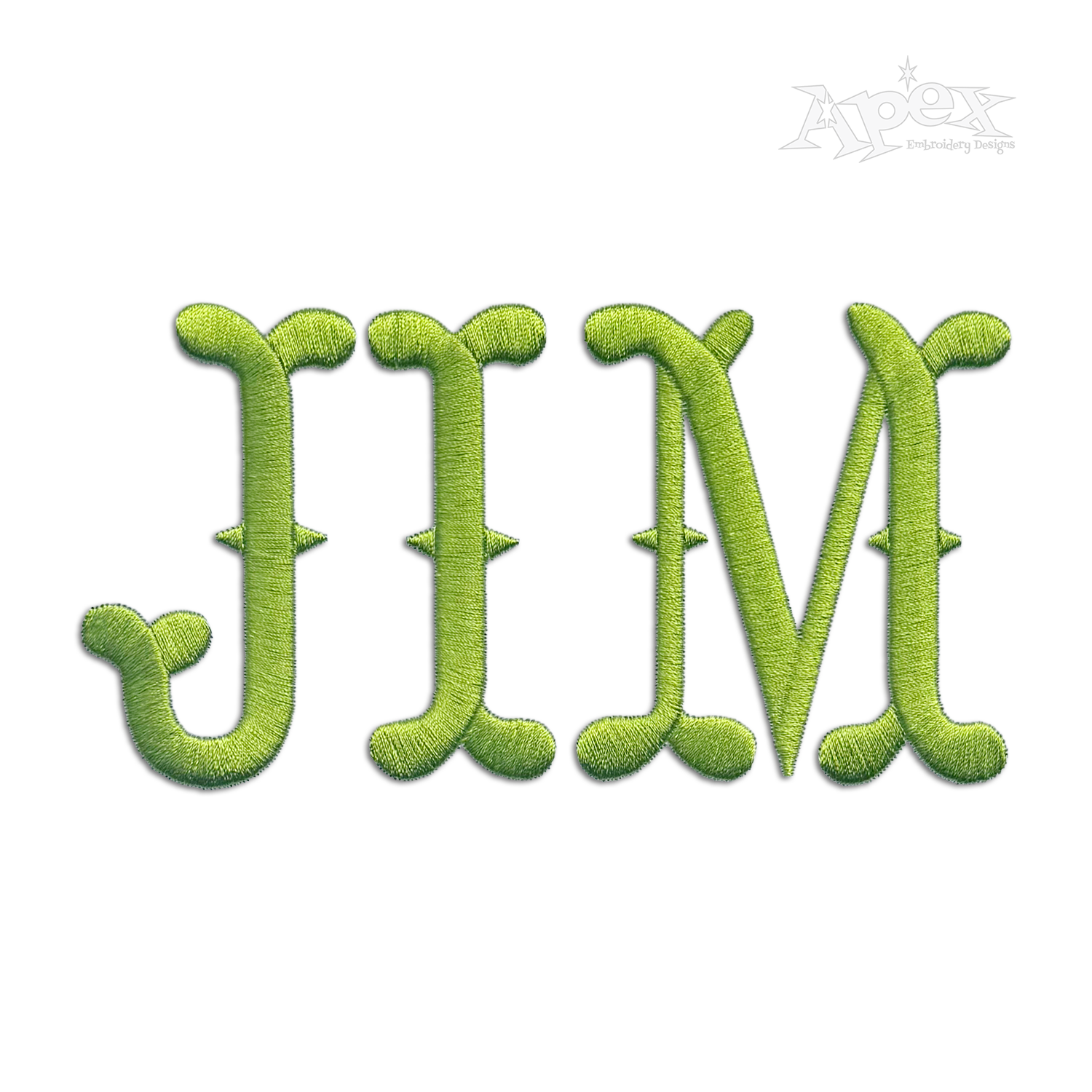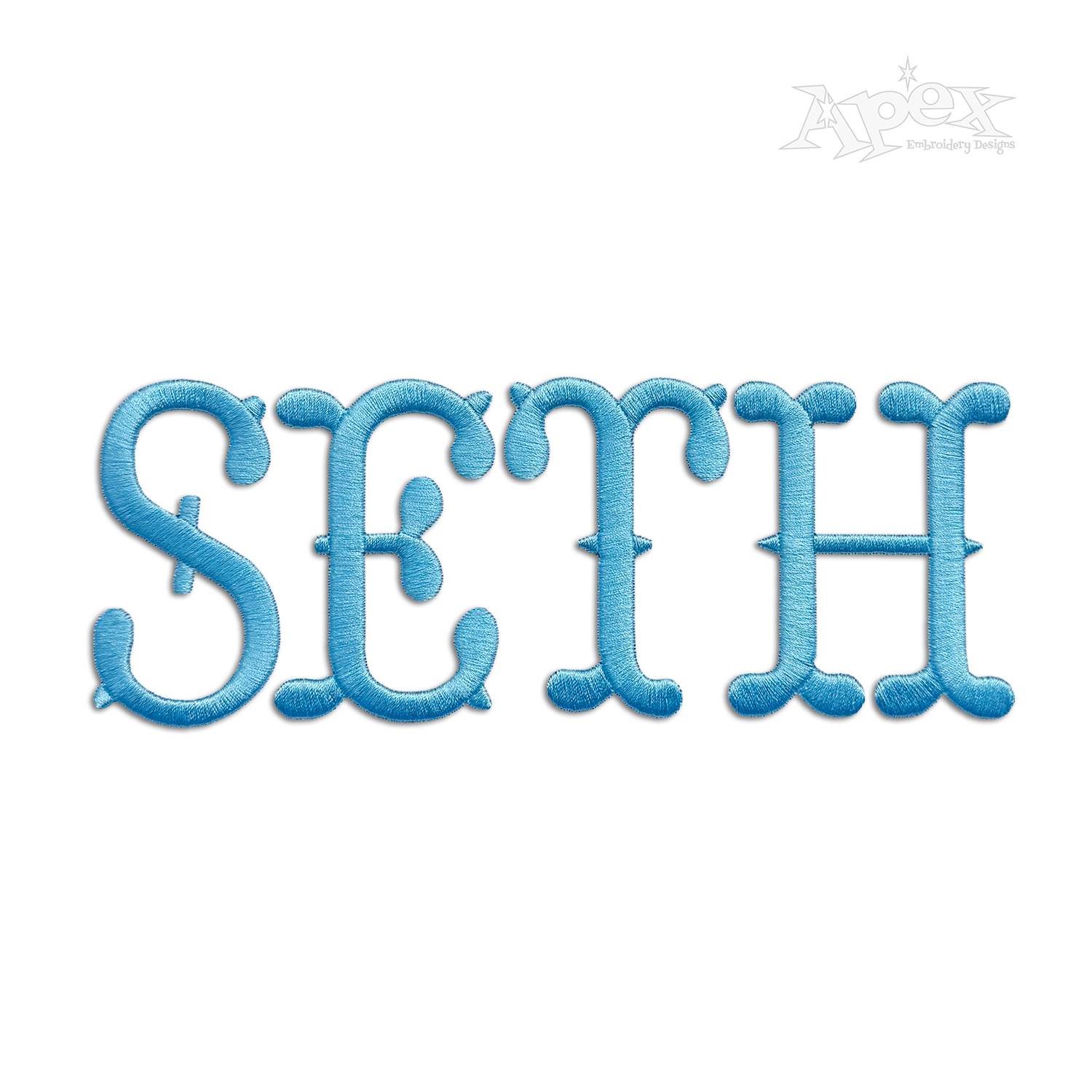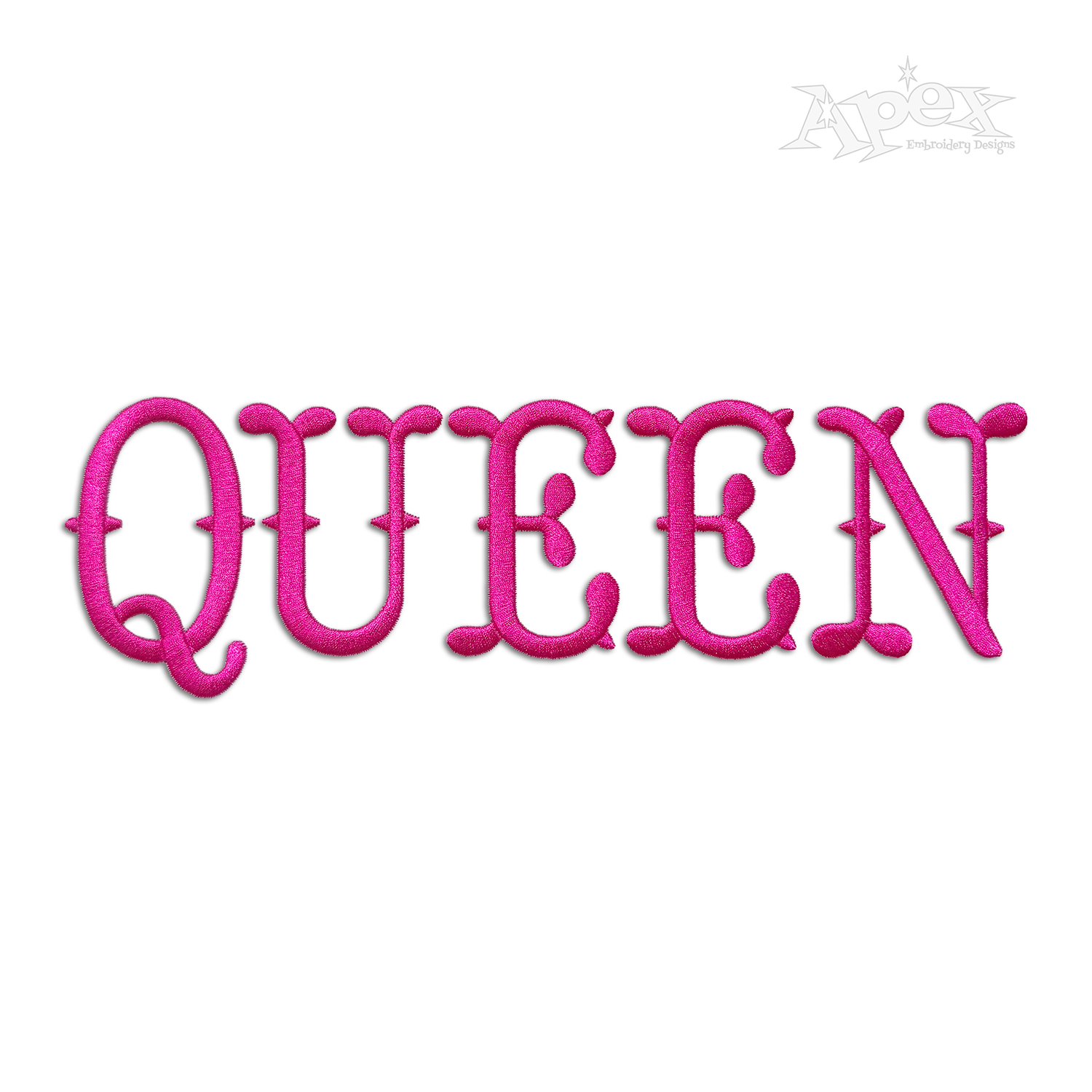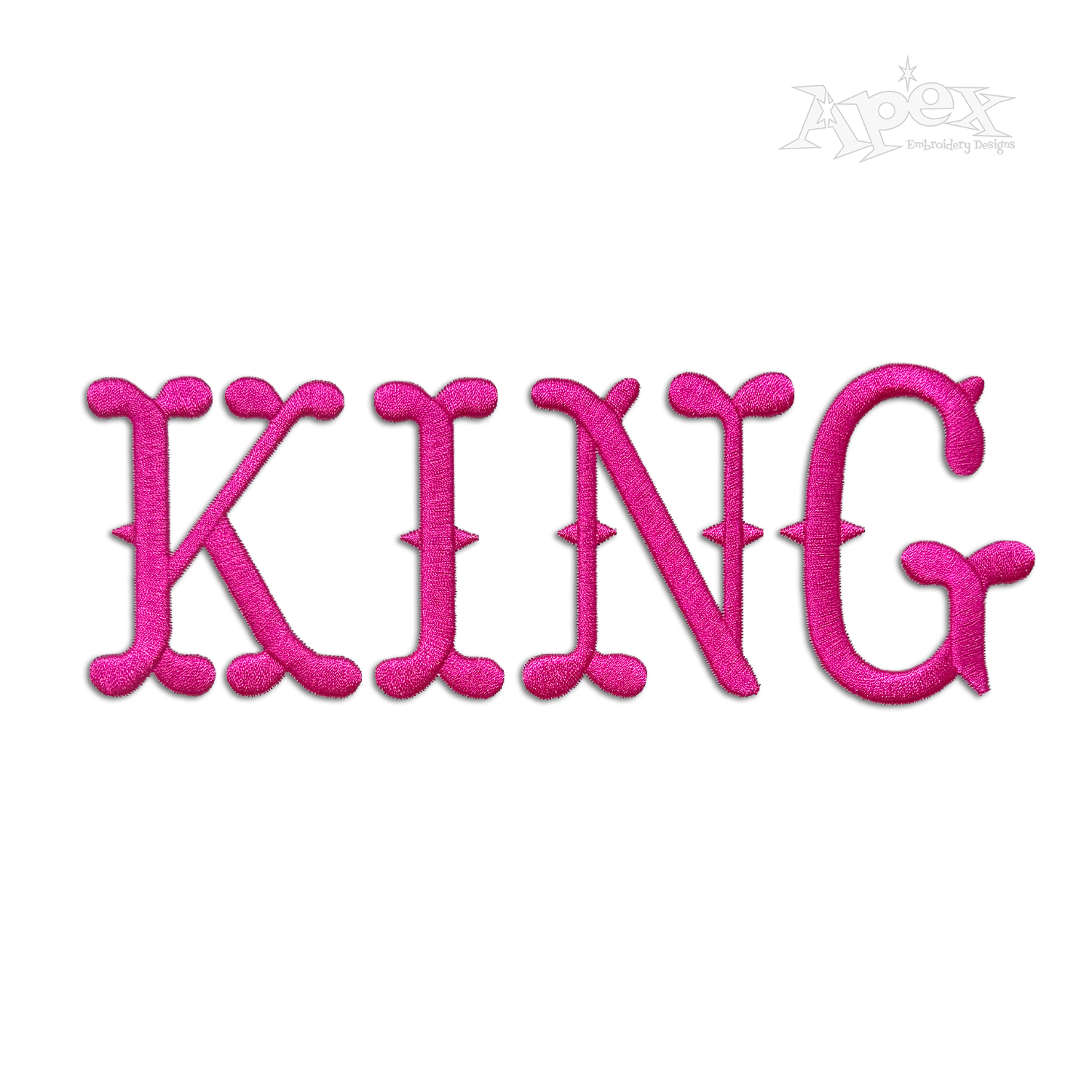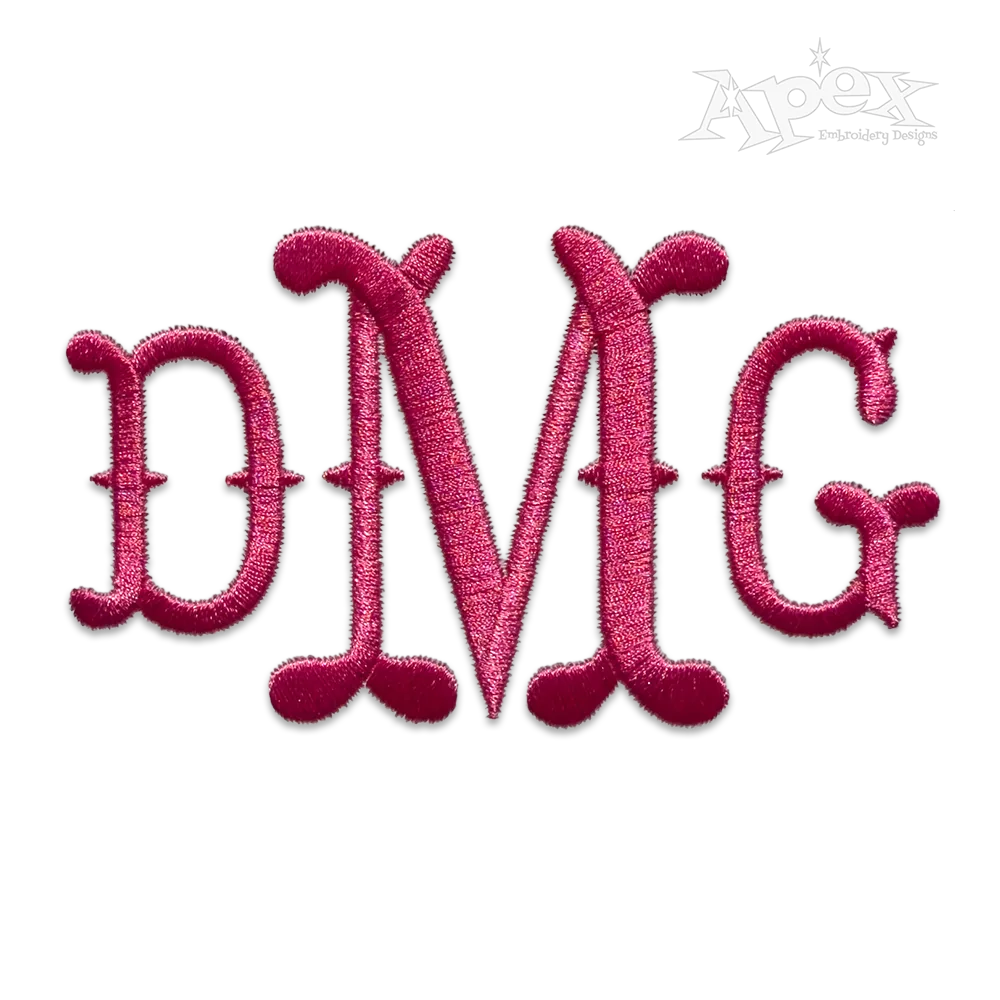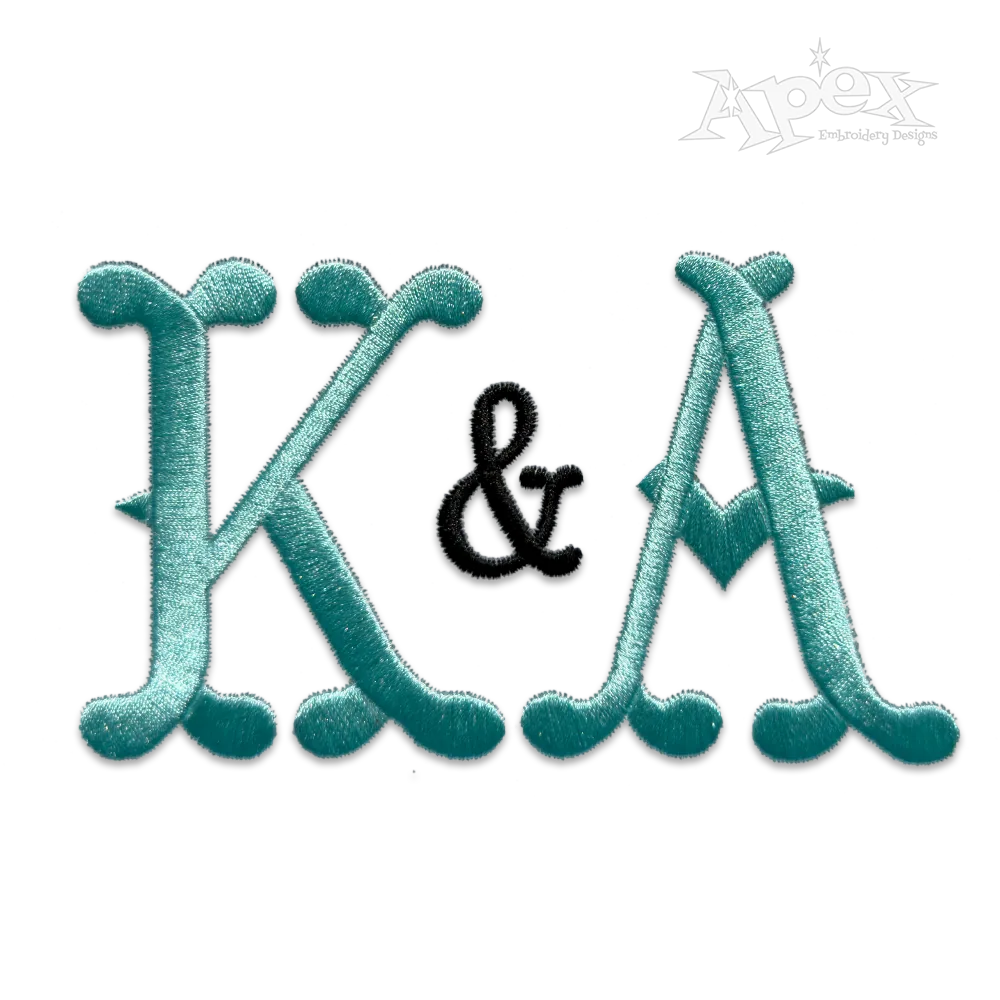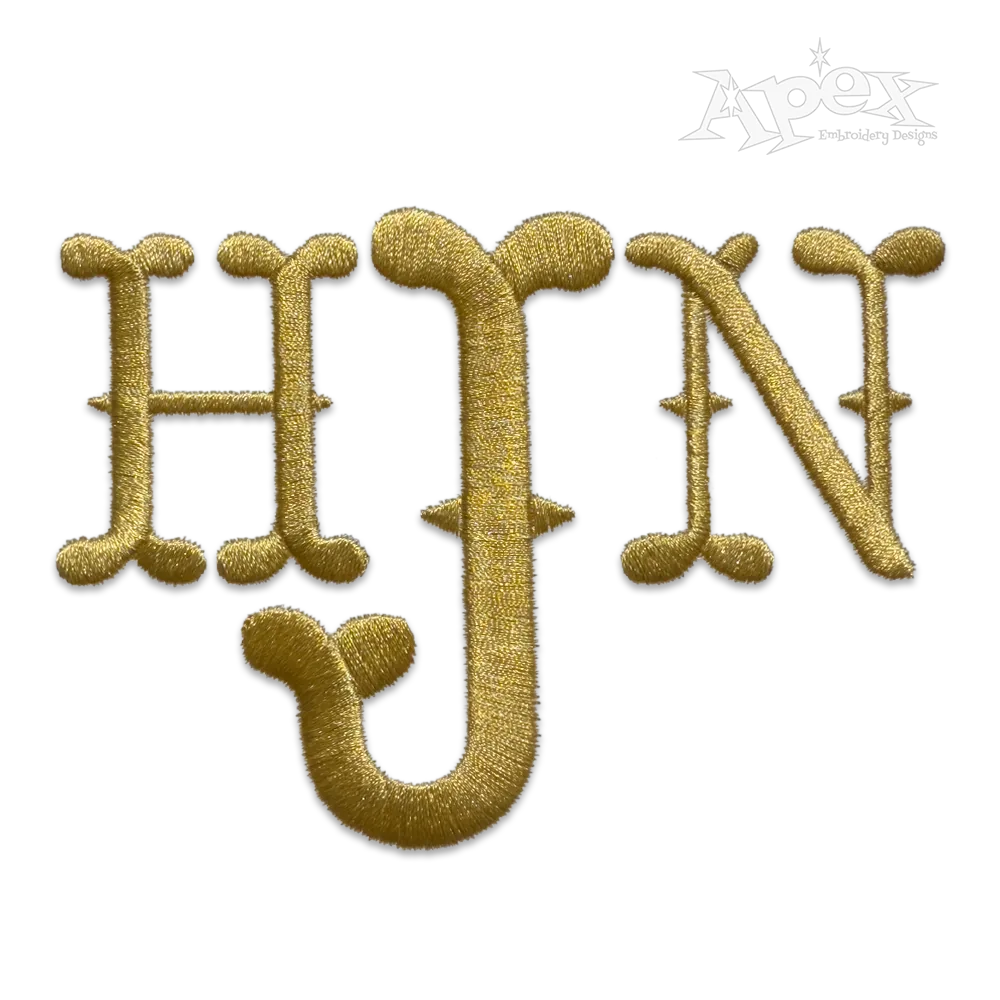
Aretha Embroidery Font
Conceived with a lyrical cadence and bold, soulful poise, the Aretha Embroidery Font captures the rhythmic beauty of mid-century glamour reinterpreted for the modern needle. When drafting this alphabet, we wanted each letterform to command attention without ever feeling rigid—balancing sweeping ascenders, sculpted swashes, and statuesque body lines that glisten under natural light. As the needle glides across fabric, Aretha transforms simple monograms into expressive, heirloom-worthy statements that sing with sophistication, organic warmth, and couture-level charm.
Project Ideas for Aretha Embroidery Font
The stately yet curvaceous nature of this satin stitch alphabet makes it a natural fit for both formal home appointments and bespoke fashion accents:
- Luxury Table Linens: Embroider single initial monograms on the diagonal corners of Belgian linen cocktail napkins, placemats, and formal dinner runners.
- Bridal & Trousseau Keepsakes: Stitch bride and bridal party titles or new marital monograms across silk dressing robes, delicate lingerie cases, and heirloom garters.
- Heirloom Bedding & Guest Towels: Position a grand 3-inch three-letter monogram across crisp cotton percale euro shams or down the border of plush Turkish bath towels.
- Bespoke Resort Wear: Embellish structured canvas beach totes, breezy linen resort shirts, sun hats, and resort cover-ups with elevated, personalized typography.
- Personalized Gifting: Create bespoke velvet travel pouches, cashmere throws, tailored baby blankets, and commemorative anniversary gifts.
Achieving a balanced, professional look relies on harmonizing font scale with item geometry:
- Corner Diagonal: For cocktail napkins, handkerchiefs, and tea towels, position the monogram angled 45 degrees along the hemline, set 1.5 to 2 inches inward from the corner point.
- Left Chest & Pocket: Utilize the 1-inch or 2-inch sizing placed approximately 7 to 9 inches down from the shoulder seam and centered between the placket and side seam on tailored shirts, robes, and pajamas.
- Center Sham Crest: Center the 3-inch size directly in the visual midpoint of accent pillows, or along the top hem fold of a luxury flat sheet for a boutique hotel aesthetic.
- Cuff & Hem Borders: Use the 1-inch alphabet to introduce subtle luxury along the outer edge of a French cuff, a sleeve hem, or the lower border of a dinner napkin.
Aretha Embroidery Font Craft & Letterform Details
Every stroke of the Aretha font has been digitized to honor the natural refraction of fine embroidery thread. We sculpted the satin pathways with gentle inclination shifts, guiding the thread to flow effortlessly around rounded shoulders and sweeping flourishes rather than forcing abrupt direction changes that can break the eye's journey. Each terminal point gently tapers to a whisper-thin finish, ensuring clean stitch tie-offs that stay locked beneath the surface without creating bulky knots.
Beneath those lustrous satin columns lies an intentional, graduated underlay network that cushions the topstitching while neutralizing fabric pull. This structural foundation preserves the pristine oval curves of letters like 'O' and 'C', as well as the sharp, distinct junctions of stems and crossbars. The resulting embroidery sits high, plump, and smooth on the fabric surface, offering a touchably soft, flexible drape that enhances delicate textiles rather than overwhelming them.